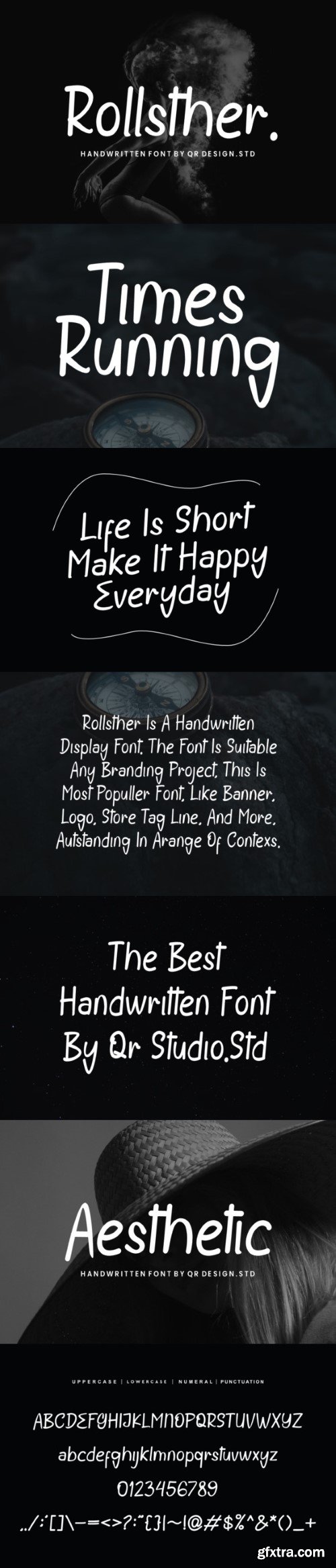
Rollsther Font is a Handwritten and authentic display font.
The font is suitable for any branding project like logo, sport, and many more.
Outstanding in a wide range of contexts.